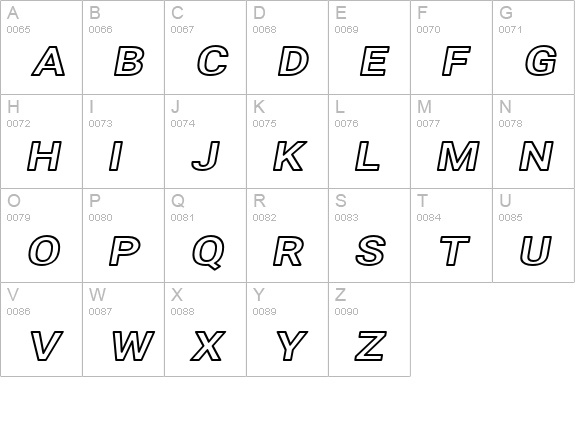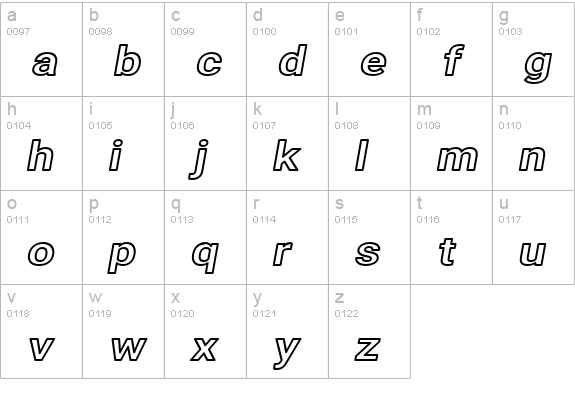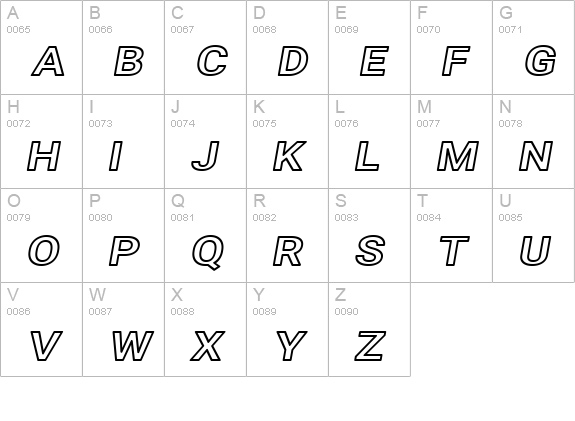
Asimov Extra Wide Outline Italic is a distinctive, extended-width, italic variant in the Asimov typeface family \xE2\x80\x94 well suited to design and typography projects.
Introducing Asimov Extra Wide Outline Italic font, a stunning typeface that effortlessly combines elegance and modernity. With its sleek and elongated letterforms, this font is perfect for adding a touch of sophistication to any design project. The italicized angle of Asimov Extra Wide Outline Italic font adds a dynamic and energetic vibe, making it particularly well-suited for use in headings, titles, and logos. The wide spacing between the letters creates a sense of openness and clarity, ensuring maximum legibility even at smaller sizes. But what sets Asimov Extra Wide Outline Italic font apart is its versatility and functionality. Whether you're working on a branding project, website design, or a print layout, this font can adapt to any creative vision. Its clean lines and distinctive shape make it an excellent choice for both digital and print media. And here's the best part – Asimov Extra Wide Outline Italic font is freely available to download at FontsMarket.com. That means you can elevate your designs without breaking the bank. So go ahead, unleash your creativity, and create visually stunning projects with this remarkable font. Download Asimov Extra Wide Outline Italic font today and experience the freedom of artistic expression. Let this font become the cornerstone of your design arsenal, helping you captivate audiences and leave a lasting impression. With its unique style and accessibility, Asimov Extra Wide Outline Italic font is a must-have for any discerning designer.